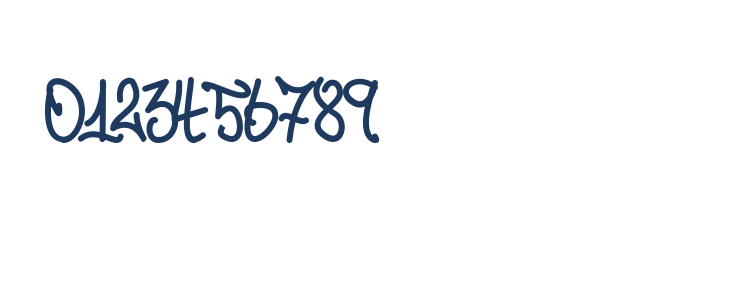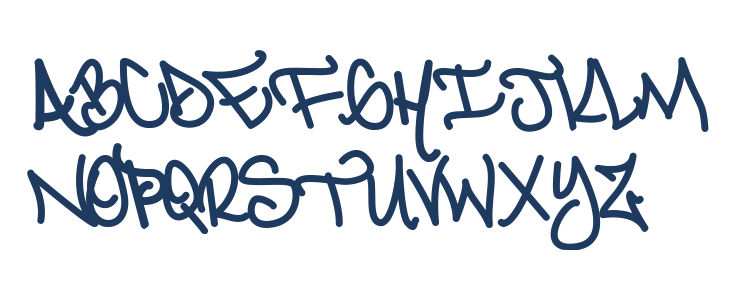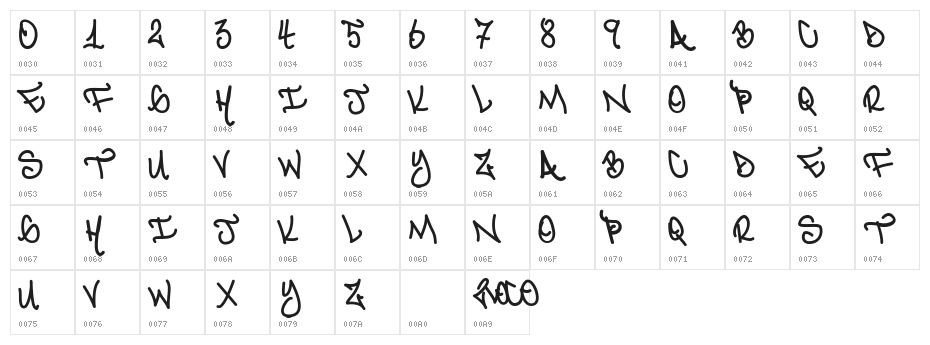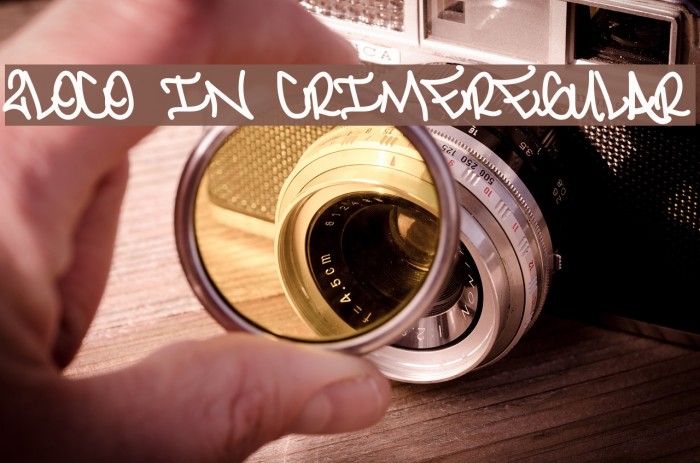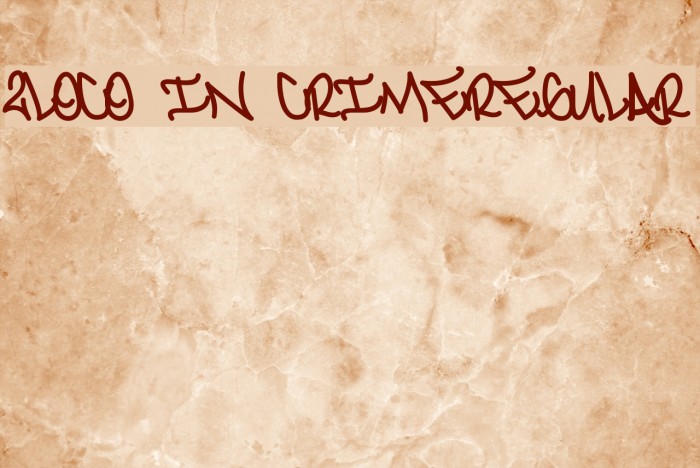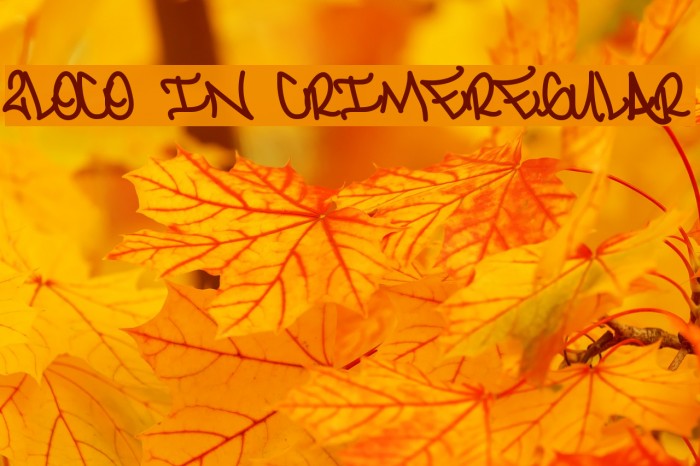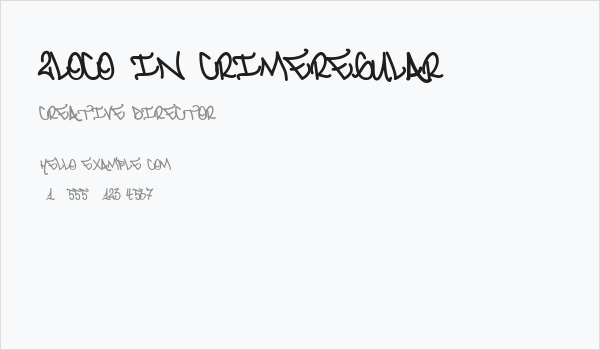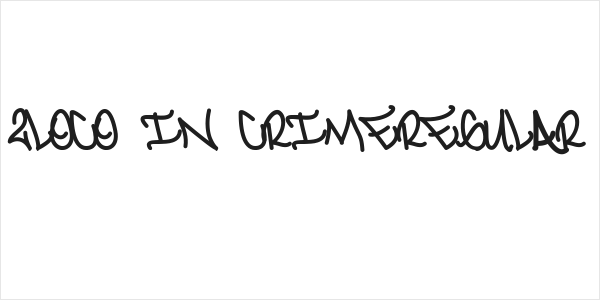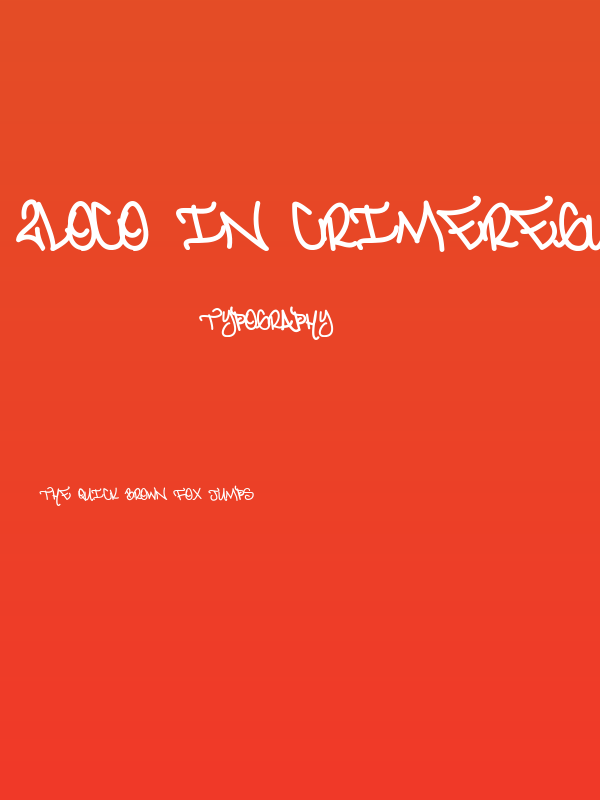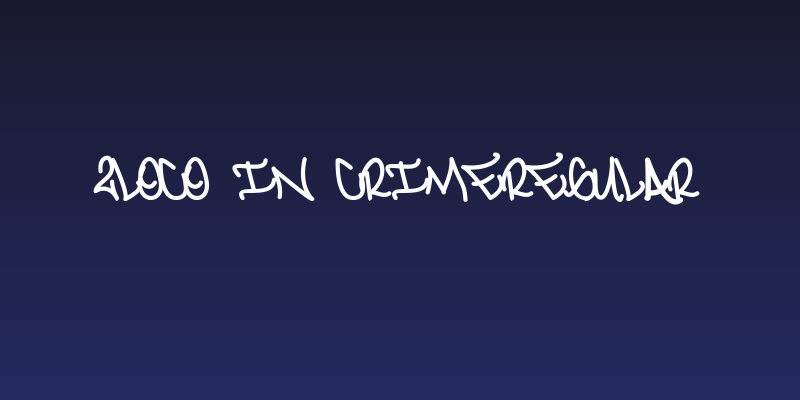
2LOCO IN CRIMERegular Font
2LOCO IN CRIMERegular Description
This font features a bold, graffiti-inspired style with a dynamic and energetic appearance. The letters are characterized by their thick strokes and fluid, interconnected forms, giving them a sense of movement and spontaneity. The uppercase and lowercase letters share a consistent style, with exaggerated curves and sharp angles that create a visually striking effect. The numbers maintain the same boldness and style, ensuring uniformity across all characters. This font is ideal for projects that require a bold, urban aesthetic, such as street art, music album covers, or edgy branding.
| Overall Style | Urban, Graffiti, Energetic |
| Use Case | Logos, Posters, Headlines |
| Proposed Projects | Street art, music album covers, edgy branding, urban-themed posters. |